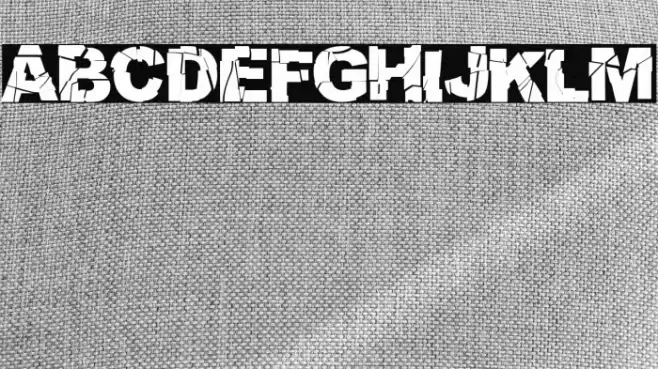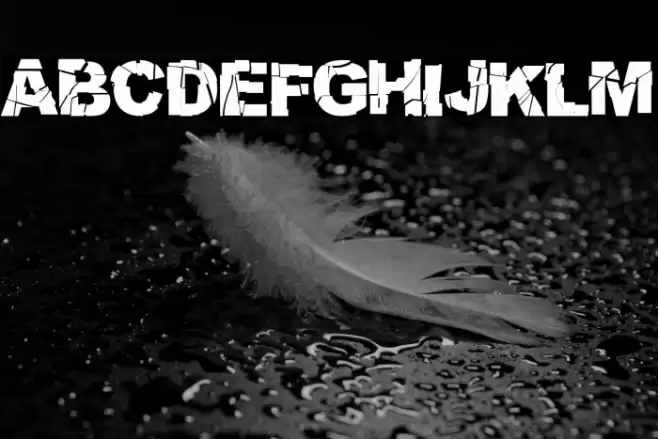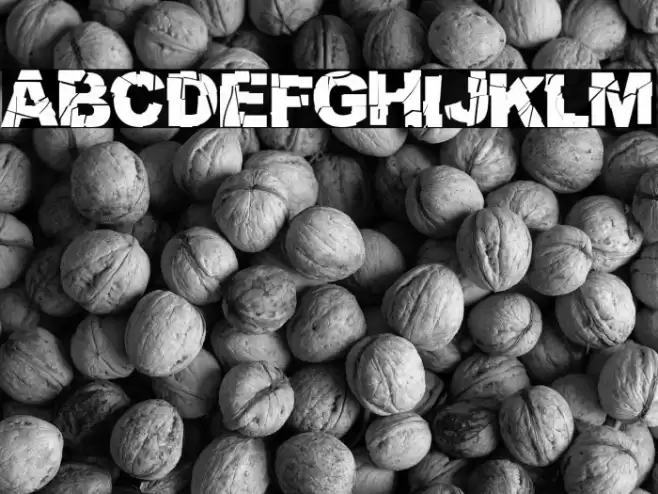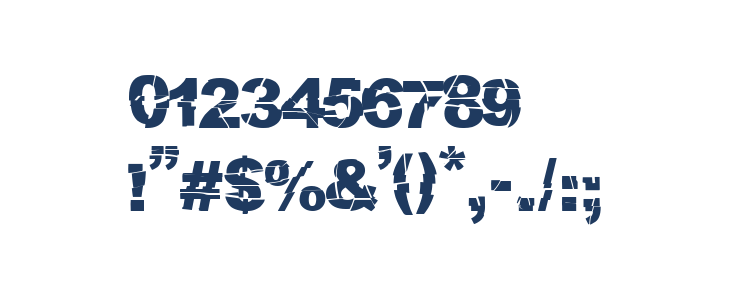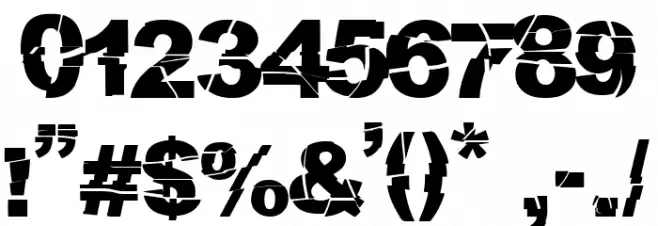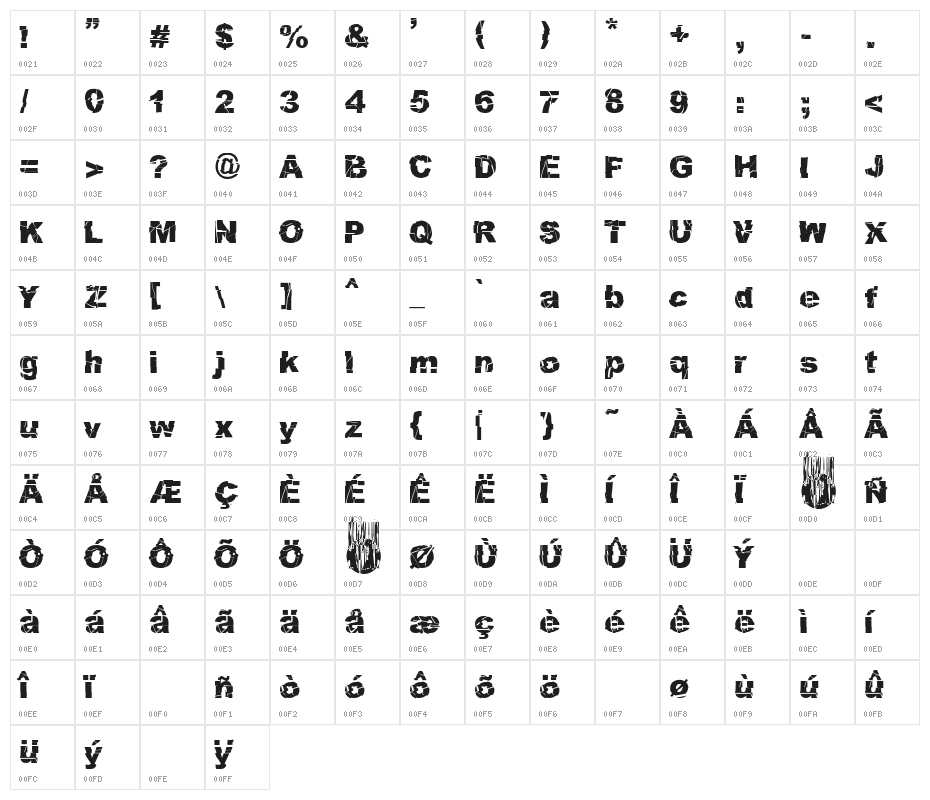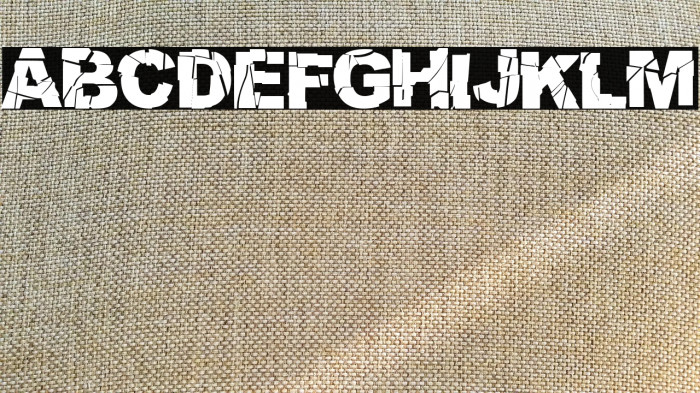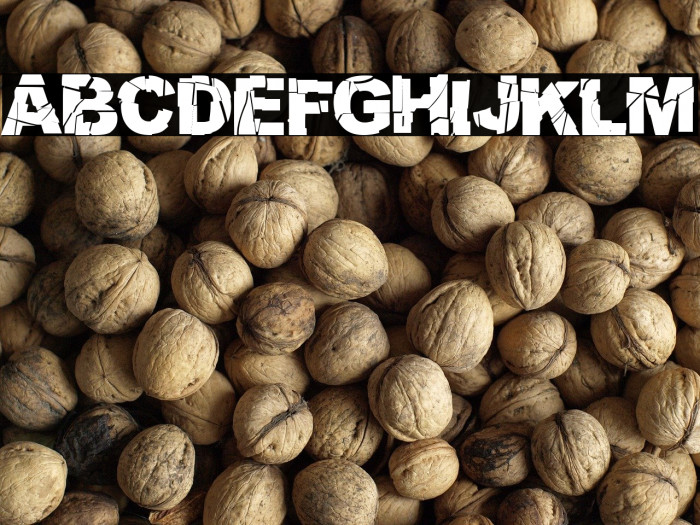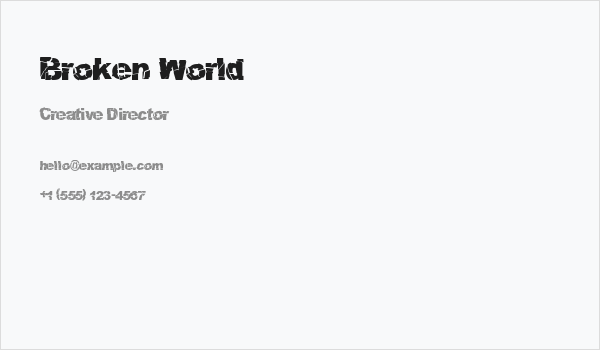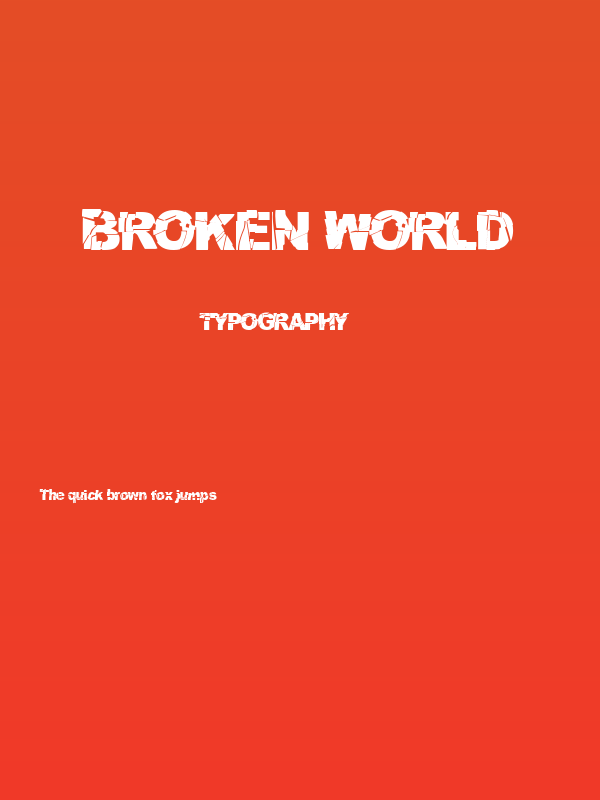
Broken World Font
Broken World Description
This font features a bold, fragmented design that gives the impression of shattered glass or a broken surface. Each character is composed of irregular, jagged shapes that create a dynamic and chaotic appearance. The uppercase and lowercase letters maintain a consistent weight, adding to the overall boldness of the font. Numbers and special characters follow the same fragmented style, ensuring a cohesive look across all elements. The font's unique design makes it stand out, ideal for projects that require a strong visual impact.
A bold, fragmented font with a shattered glass effect from Uncategorized fonts.
- Font: Broken World
- Proposed Projects: Ideal for album covers, posters, video game titles, and any project needing a dramatic, edgy aesthetic.
- Overall Style: Modern, Edgy